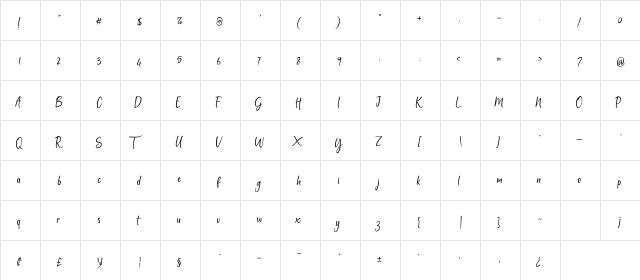
Patlystic Regular
Design Context for Patlystic Typeface
Patlystic is a composed and adaptable typeface that performs quietly and consistently across a wide range of design contexts.